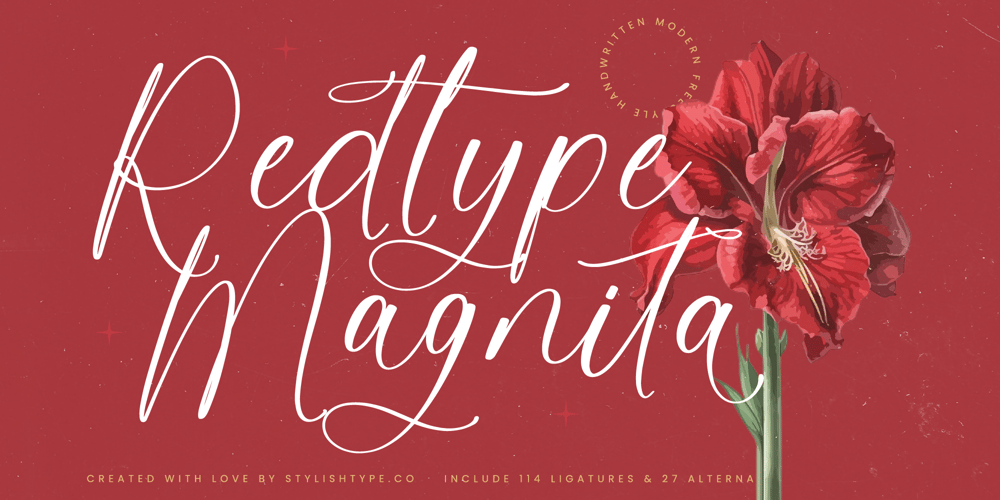
Redtype Magnita Font Family was designed by Heru Utama Putra and published by Stylishtype Studio. Redtype Magnita contains 2 styles and family package options. Redtype Magnita – Modern Freestyle Handwritten , from Stylishtype , Suitable for any projects such as: logos, branding projects, homeware designs, product packaging, mugs, quotes, posters, shopping bags, t-shirts, book covers, name card, invitation cards, greeting cards, label, photography, watermark, special events, and all your other luxury and beautiful projects that need a Luxury Script taste.